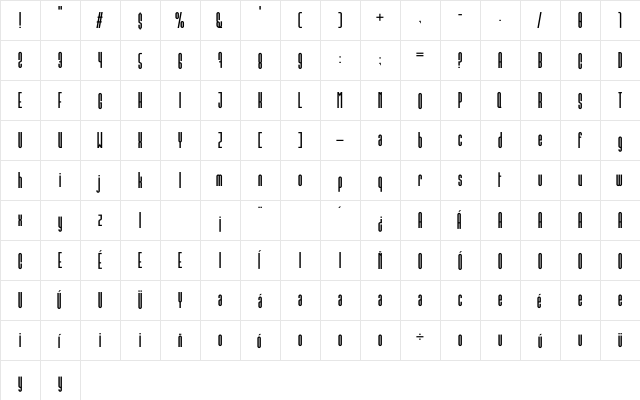
Conde Sans Bold
Design Context for Conde Sans Typeface
Conde Sans offers clean, dependable letterforms without strong stylistic allegiance, making it a practical choice for designers who need flexibility. Its bold stroke weight gives it real presence on the page. Its narrow stance lets it pack a punch even in space-constrained designs.
Pro Tip: Use Conde Sans in both headline and body roles to test its range before committing to a single application.